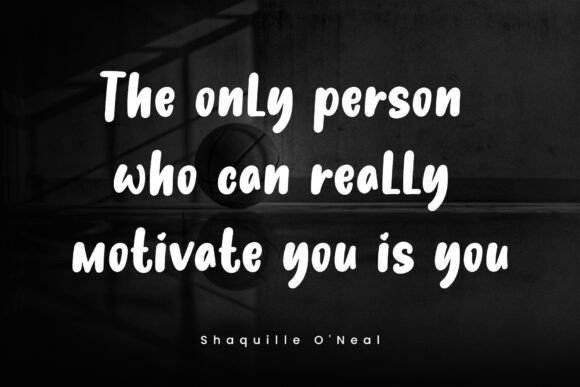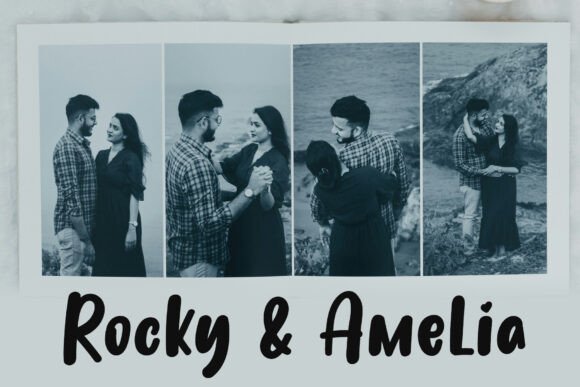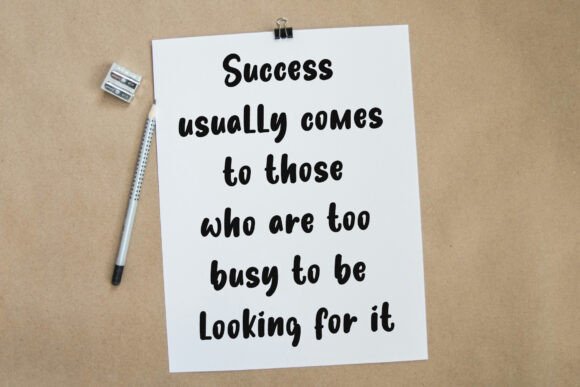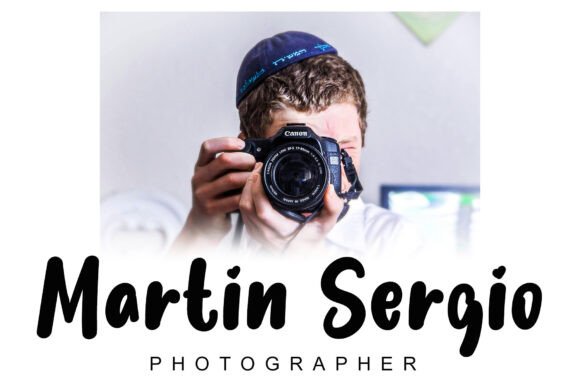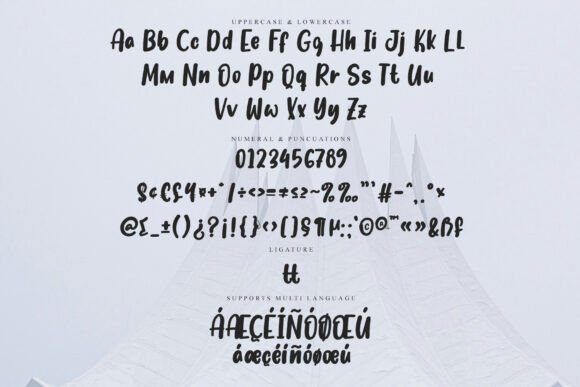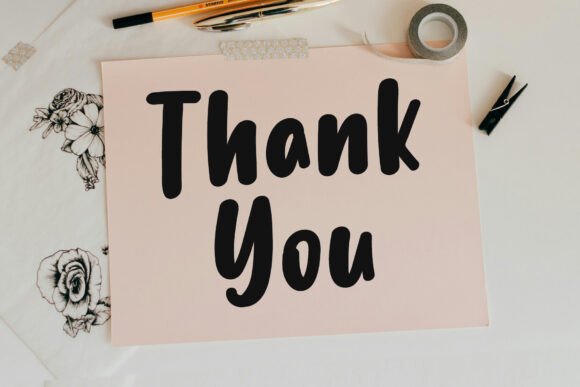
Introducing Autofast Font: The Ultimate Choice for Cheerful Designs
Are you tired of using the same old fonts for your designs? Do you want to add a touch of fun and quirkiness to your projects? Look no further than Autofast Font! This display font is perfect for use on cheerful topics and is especially suitable for children’s themed designs. In this article, we’ll take a closer look at Autofast Font and explore its features, benefits, and uses.
What is Autofast Font?
Autofast Font is a fun and quirky display font designed to add a touch of excitement to your designs. Its unique and playful style makes it perfect for use on cheerful topics, such as children’s designs, party invitations, and more. The font is carefully crafted to be highly legible and easy to read, making it suitable for a wide range of applications.
Key Features of Autofast Font
- PUA Encoded: Autofast Font is PUA (Private Use Area) encoded, which means you can access all of the amazing glyphs and ligatures with ease. This makes it easy to use the font and get the most out of its features.
- Fun and Quirky: Autofast Font has a unique and playful style that’s perfect for adding a touch of fun to your designs.
- Highly Legible: The font is carefully crafted to be highly legible and easy to read, making it suitable for a wide range of applications.
- Children’s Themed Designs: Autofast Font is especially suitable for children’s themed designs, making it a great choice for projects such as kids’ party invitations, children’s books, and more.
Benefits of Using Autofast Font
There are many benefits to using Autofast Font in your designs. Here are just a few:
- Adds a Touch of Fun: Autofast Font adds a touch of fun and quirkiness to your designs, making them stand out from the crowd.
- Increases Engagement: The font’s playful style can help increase engagement and make your designs more appealing to your target audience.
- Versatile: Autofast Font is highly versatile and can be used for a wide range of applications, from children’s designs to party invitations and more.
Uses of Autofast Font
Autofast Font is a highly versatile font that can be used for a wide range of applications. Here are just a few ideas:
- Children’s Designs: Autofast Font is perfect for use in children’s designs, such as kids’ party invitations, children’s books, and more.
- Party Invitations: The font’s playful style makes it perfect for use on party invitations, such as birthday party invitations, graduation party invitations, and more.
- Signs and Banners: Autofast Font can be used to create eye-catching signs and banners for a wide range of events and applications.
- Digital Designs: The font can be used in digital designs, such as social media graphics, blog posts, and more.
Tips for Using Autofast Font
- Combine with Bright Colors: Autofast Font looks great when combined with bright colors, making it perfect for use in children’s designs and party invitations.
- Experiment with Different Sizes: The font looks great in a variety of sizes, so don’t be afraid to experiment and find the perfect size for your design.
- Use for Headings and Titles: Autofast Font is perfect for use as headings and titles, adding a touch of fun and quirkiness to your designs.
Autofast Font is a fun and quirky display font that’s perfect for use on cheerful topics. Its unique and playful style makes it especially suitable for children’s themed designs, and its PUA encoding makes it easy to use. With its highly legible style and versatile uses, Autofast Font is a great choice for designers and crafters looking to add a touch of fun to their designs.